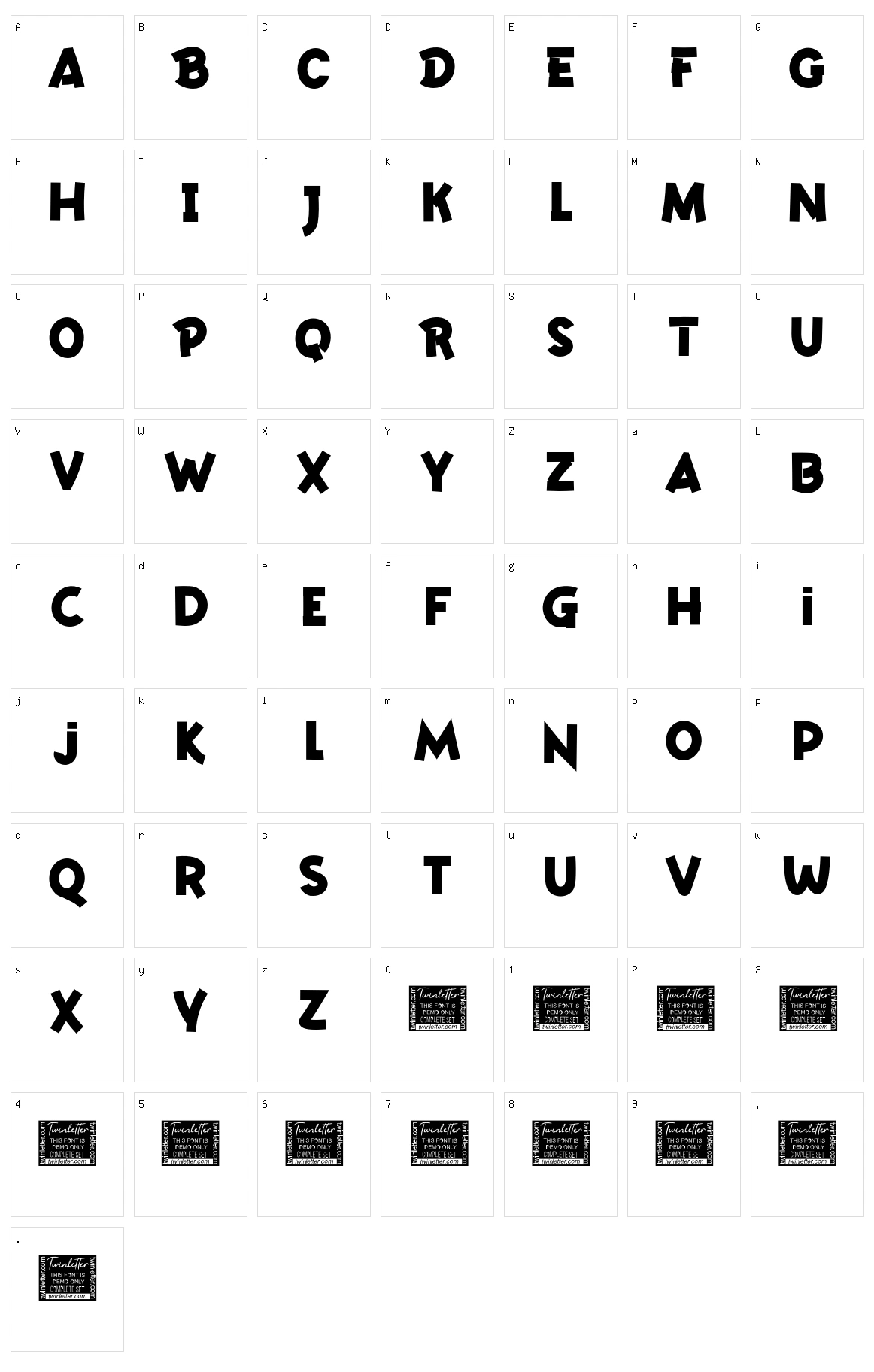
The free font Ematane is carefully designed by twinletter, showcasing a thoughtful balance of creativity and usability and falls under the Cartoon font style. When you download the ZIP file, it contains only 14.35 KB of font files, making it lightweight and quick to download. Please review the license details below to understand permitted usage and distribution rights. If license information is not available, we recommend using this font for personal projects only or contacting the author directly for commercial usage permissions.